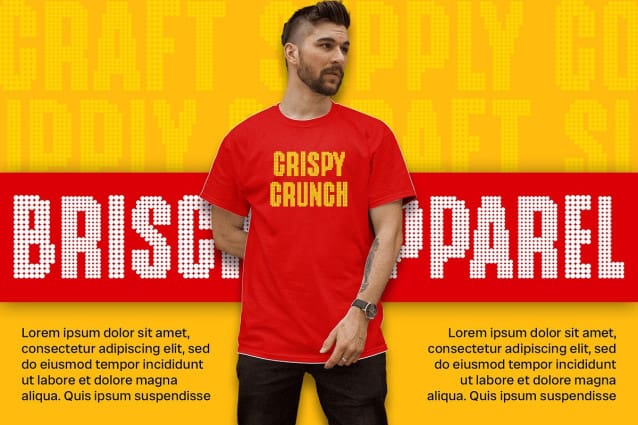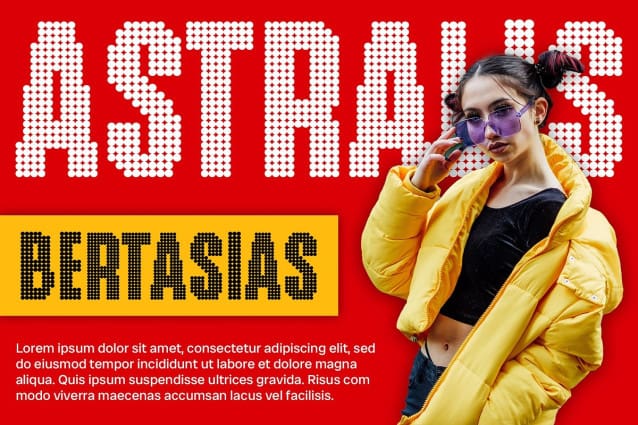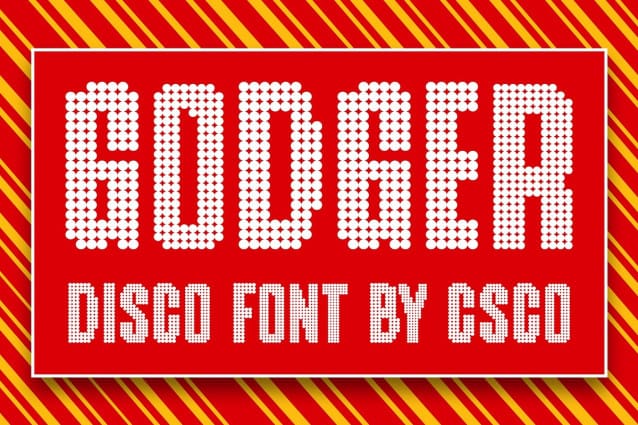
Godger Disco Font
Godger Disco Font is a bold, condensed sans serif font with a disco vibe and dotted design, perfect for display purposes. Its striking appearance and playful dot details create a lively and eye-catching look, ideal for posters, branding, and other projects that require a bold and energetic style.
With its strong lines and tight spacing, Godger Disco offers a fresh take on sans serif fonts. The bold and condensed form, combined with the disco-inspired dotted design, creates a dynamic and captivating look, perfect for designs that demand attention and convey a sense of fun and excitement.
Whether you’re designing a vibrant event poster or creating a standout logo, Godger Disco is sure to make an impression. Its bold design and disco vibe make it perfect for display purposes that need a touch of retro flair and modern energy.
Despite its distinctive appearance, Godger Disco is versatile and easy to use. The font works well in both large and small sizes, making it suitable for a variety of applications, from headlines and banners to body text and more. With its blend of bold design and disco dot style, Godger Disco adds a unique and energetic touch to any design.